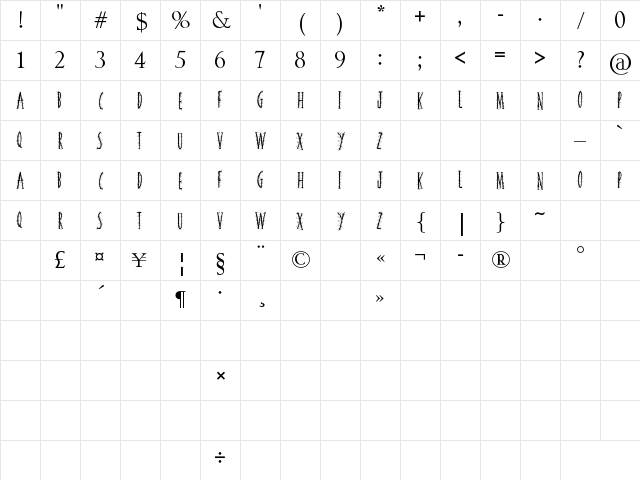
Squiggley Brown Regular
Design Context for Squiggley Brown
Squiggley Brown is a composed and adaptable typeface that performs quietly and consistently across a wide range of design contexts.